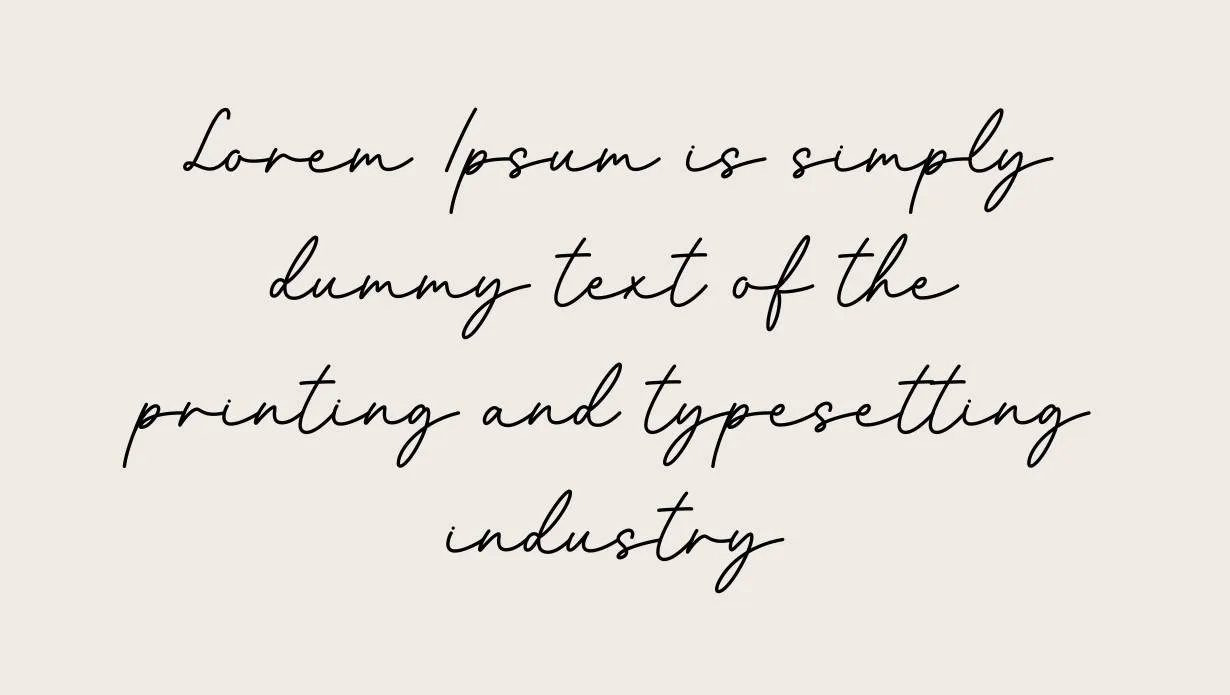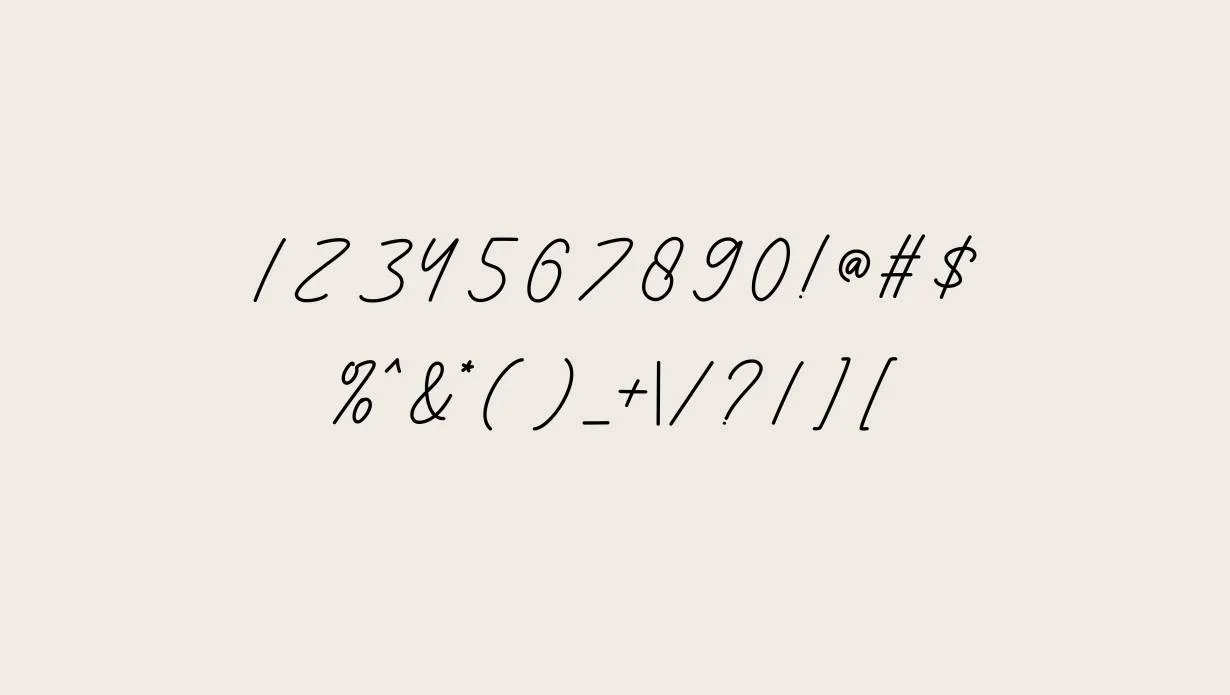
Farmhouse Font is a Calligraphy font that was created by Creativeletter, it has its own stylish and dynamic texture that can add a romantic and charming touch to anything. This typeface has a sweet and cursive appearance that can give a gorgeous and lovely touch to any content.
| Name | Farmhouse Font |
| Designer | Creativeletter |
It will surely add a delightful and whimsy touch to your project and make it outstanding as you pair it with the mahogany script font.